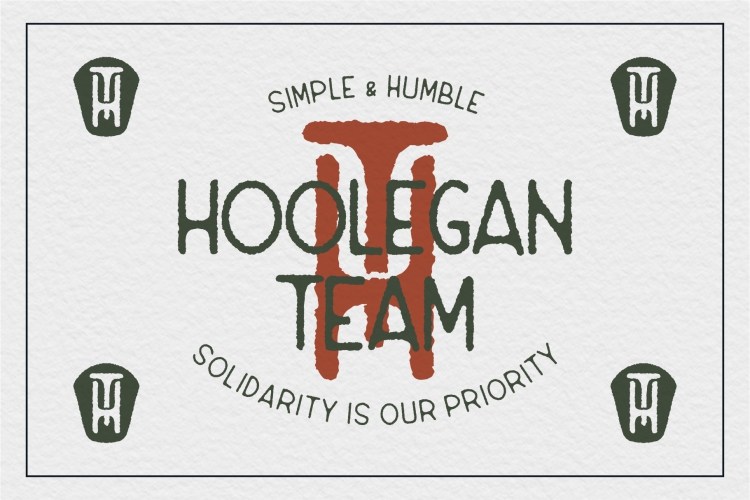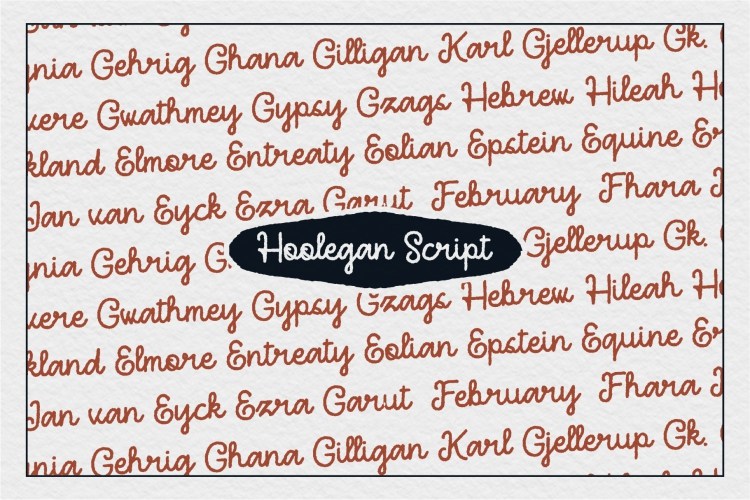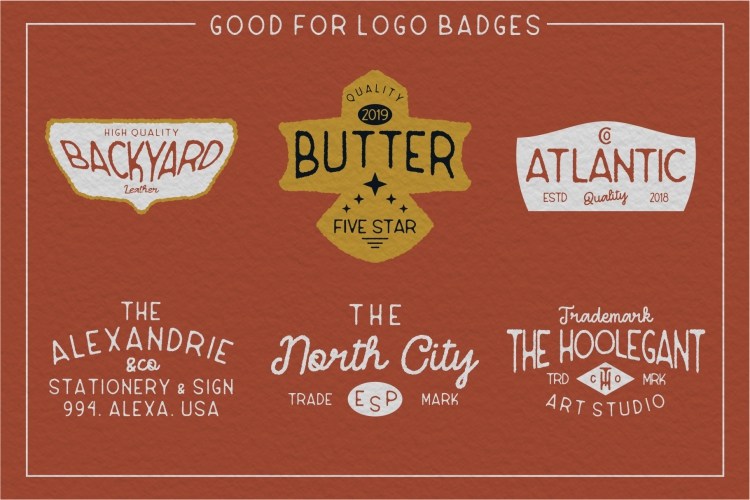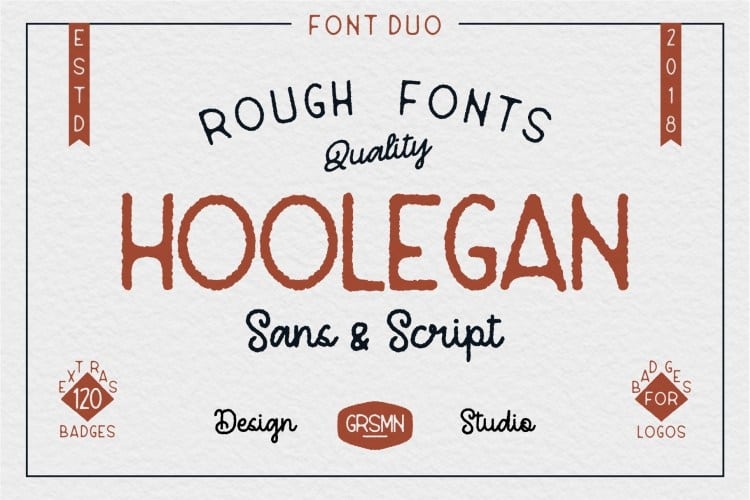
Hoolegan Font Duo
Hoolegan Font Duo – Free Demo
Hoolegan – You can use this font for many various design ideas. Hoolegan designed and shared by Garisman Std. HOOLEGAN are born from the needs of designers who like and need fonts with handwriting style and rough patterns. With Sans Hoolegan and Hoolegan Script can be combined into a design that is perfect for creating logos, shirt design, branding, ads and more. You have to feel it!